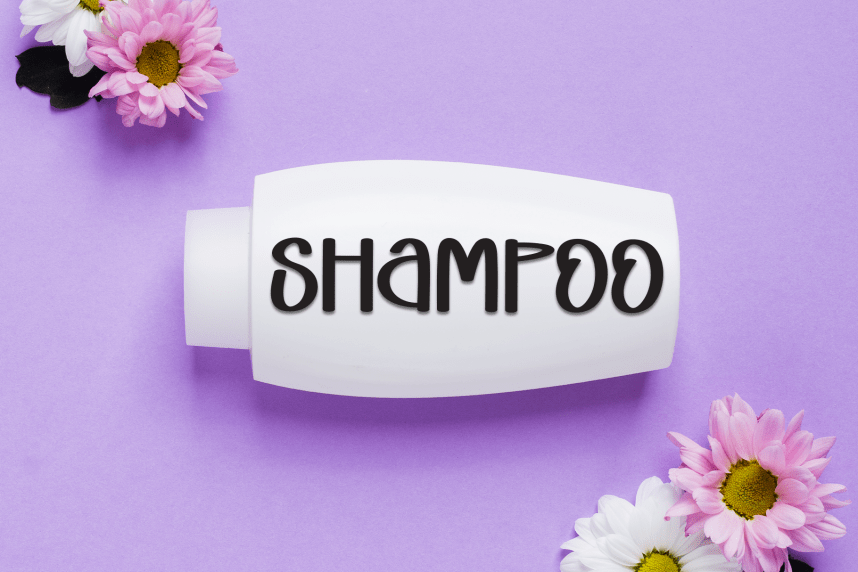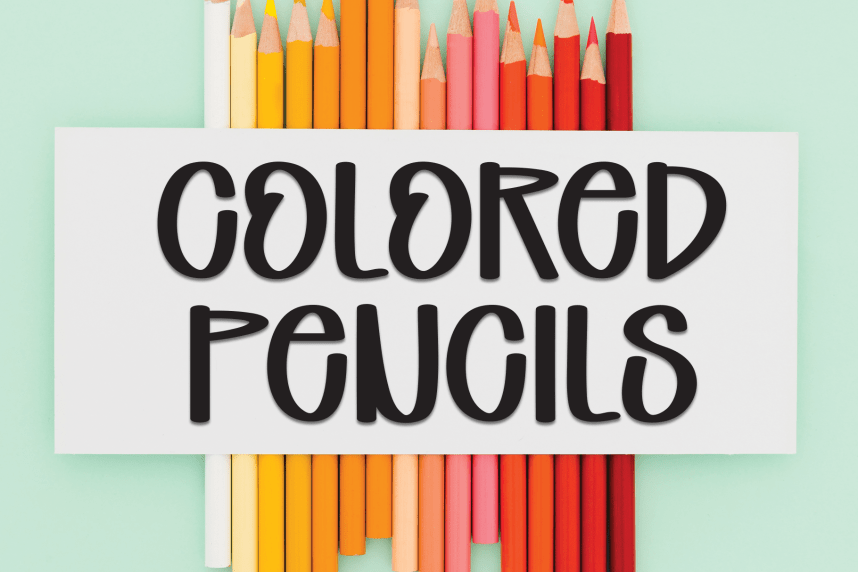
School Present – Moder Style Font
School Present – Moder Style Font is a sweet and friendly handwritten display font. Cute and fun, this font is ideal for writing wedding invitations, cards, or any other design that might need a playful touch!